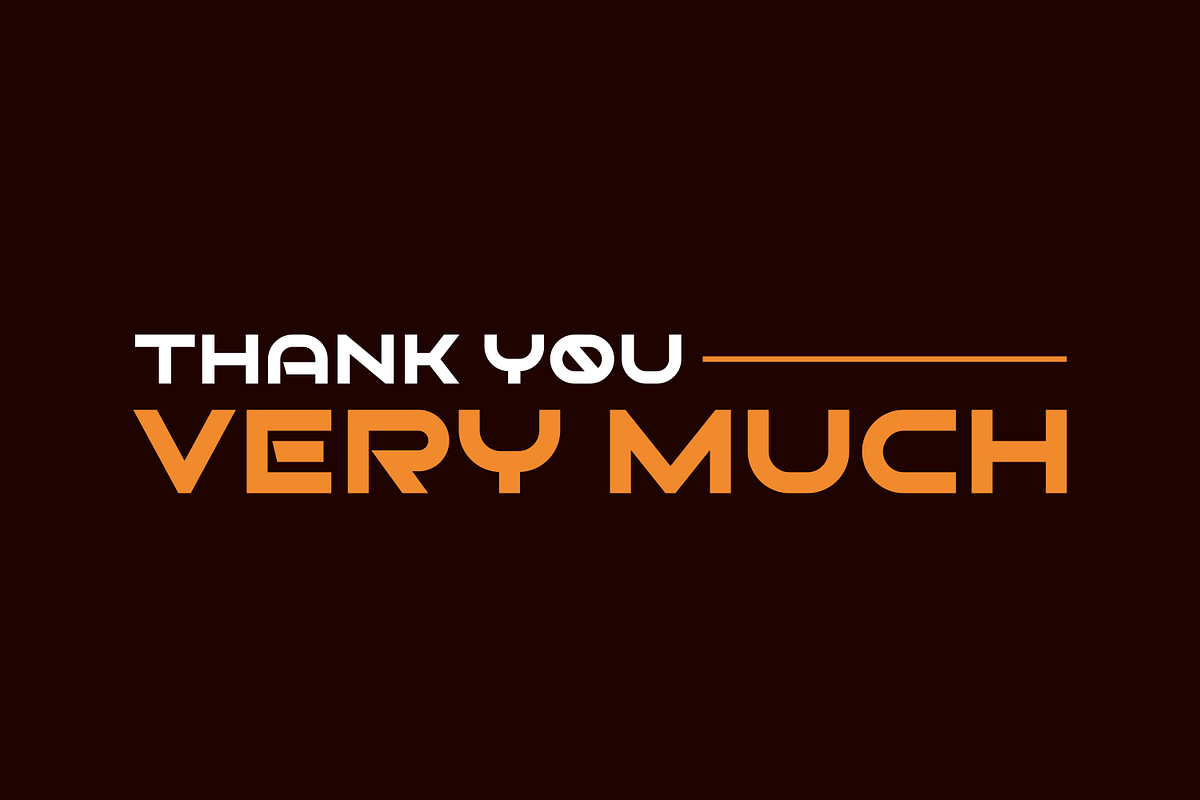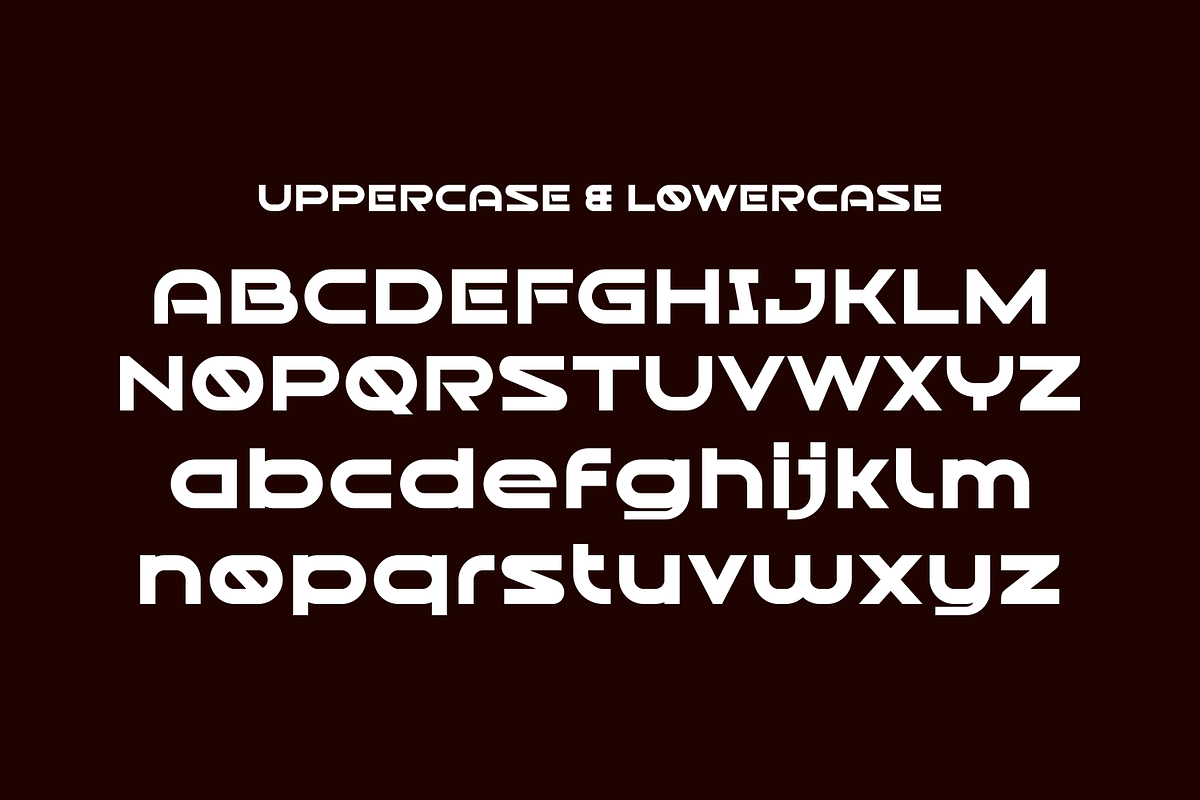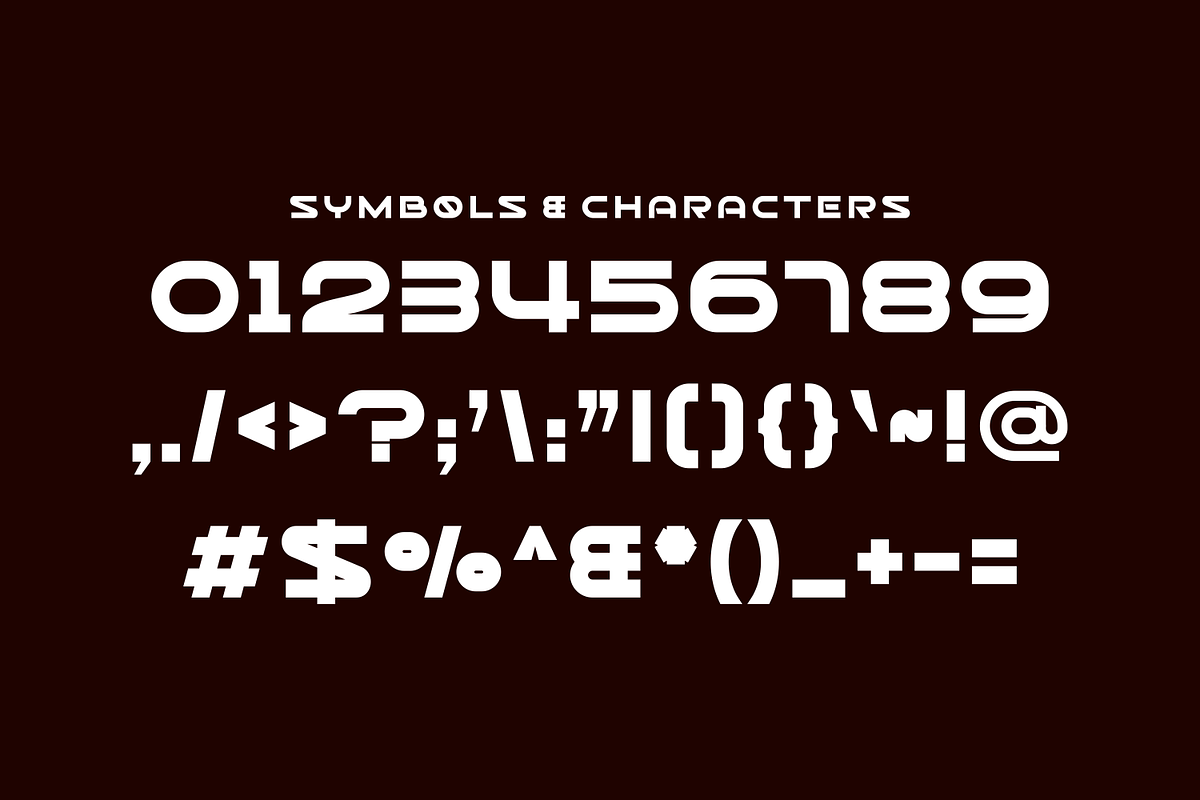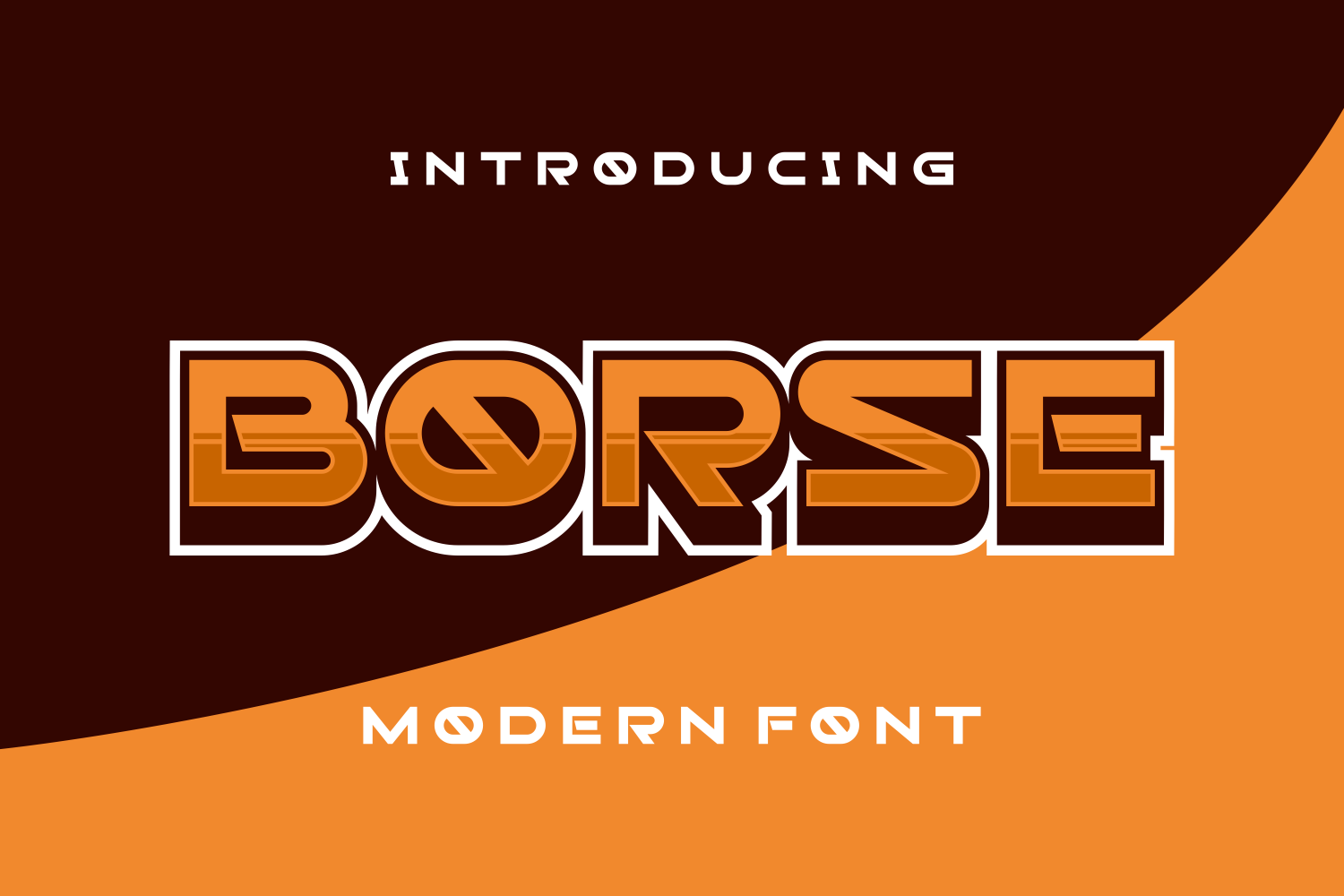
Borse - Modern Display Typeface
Borse - Modern Display Typeface Perfectly suited on print/screen. it’s perfect for Branding, name card, poster, logo, magazine, cover, banner, t-shirt and headers, or even large-scale artwork.